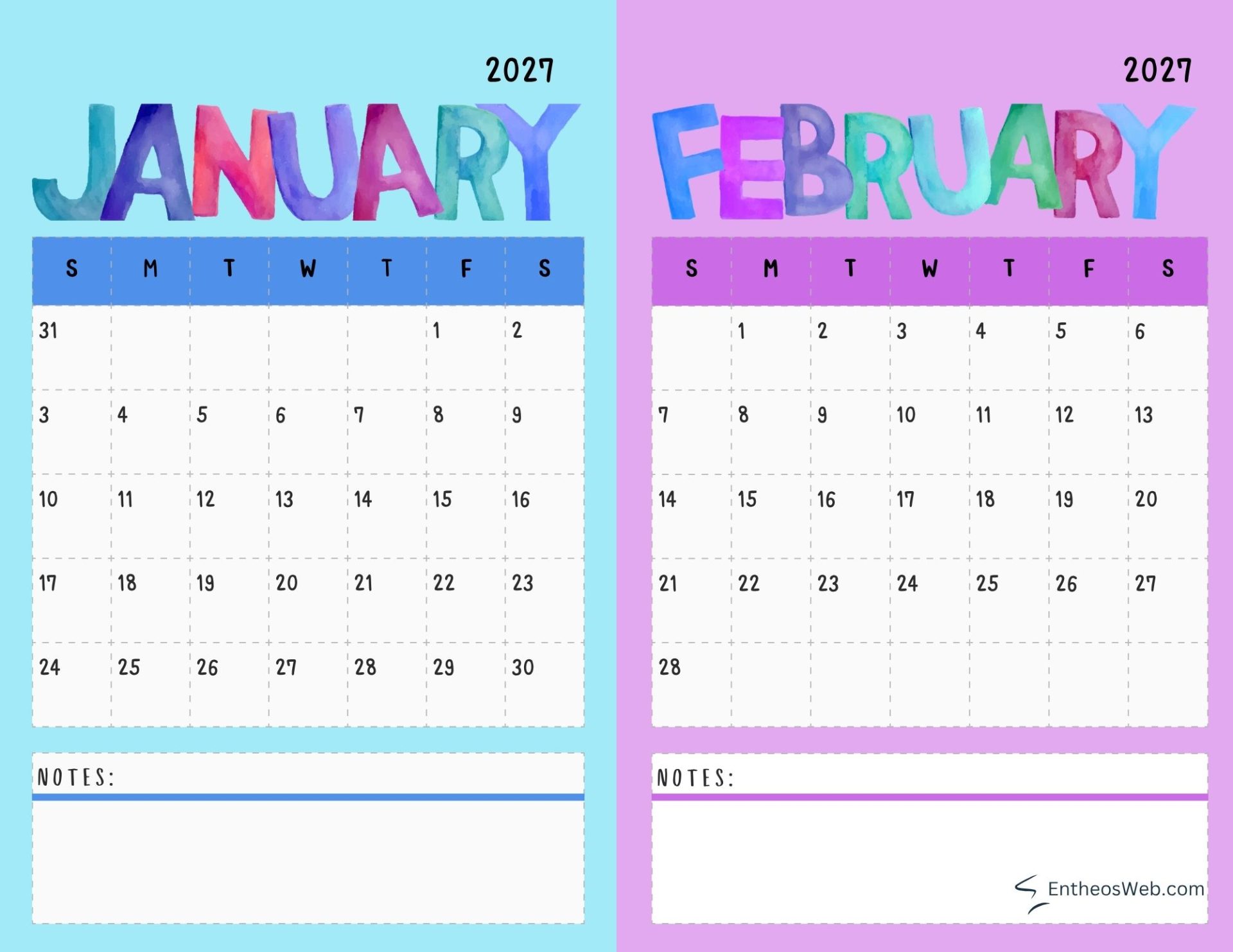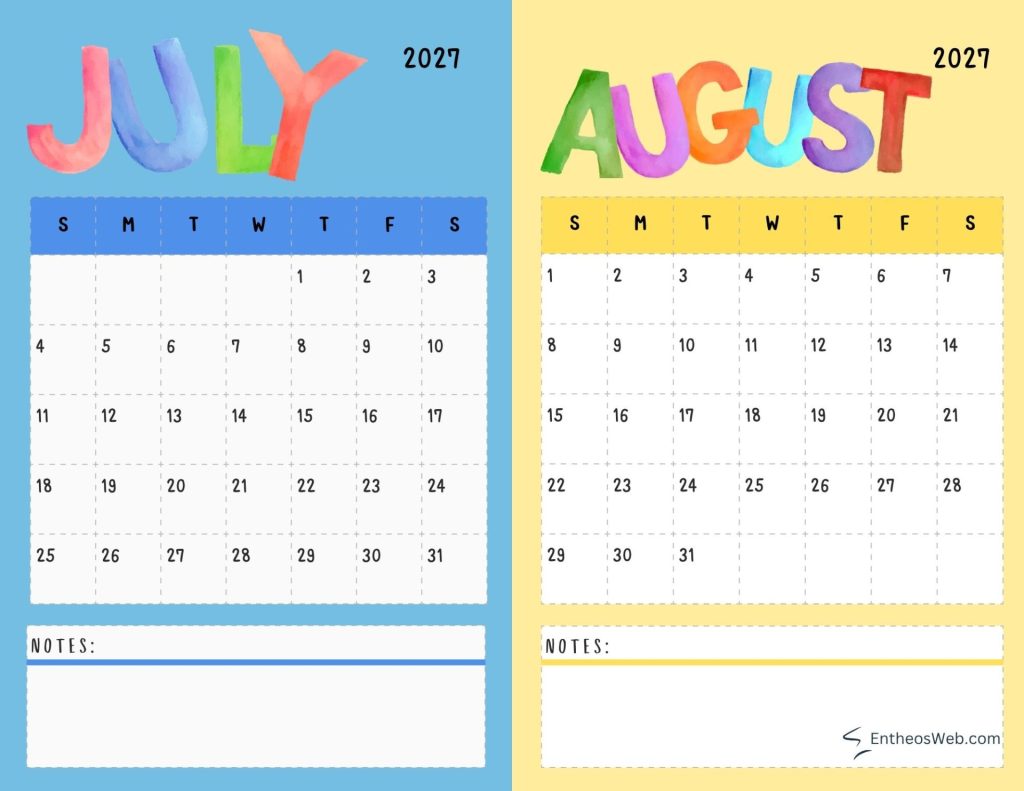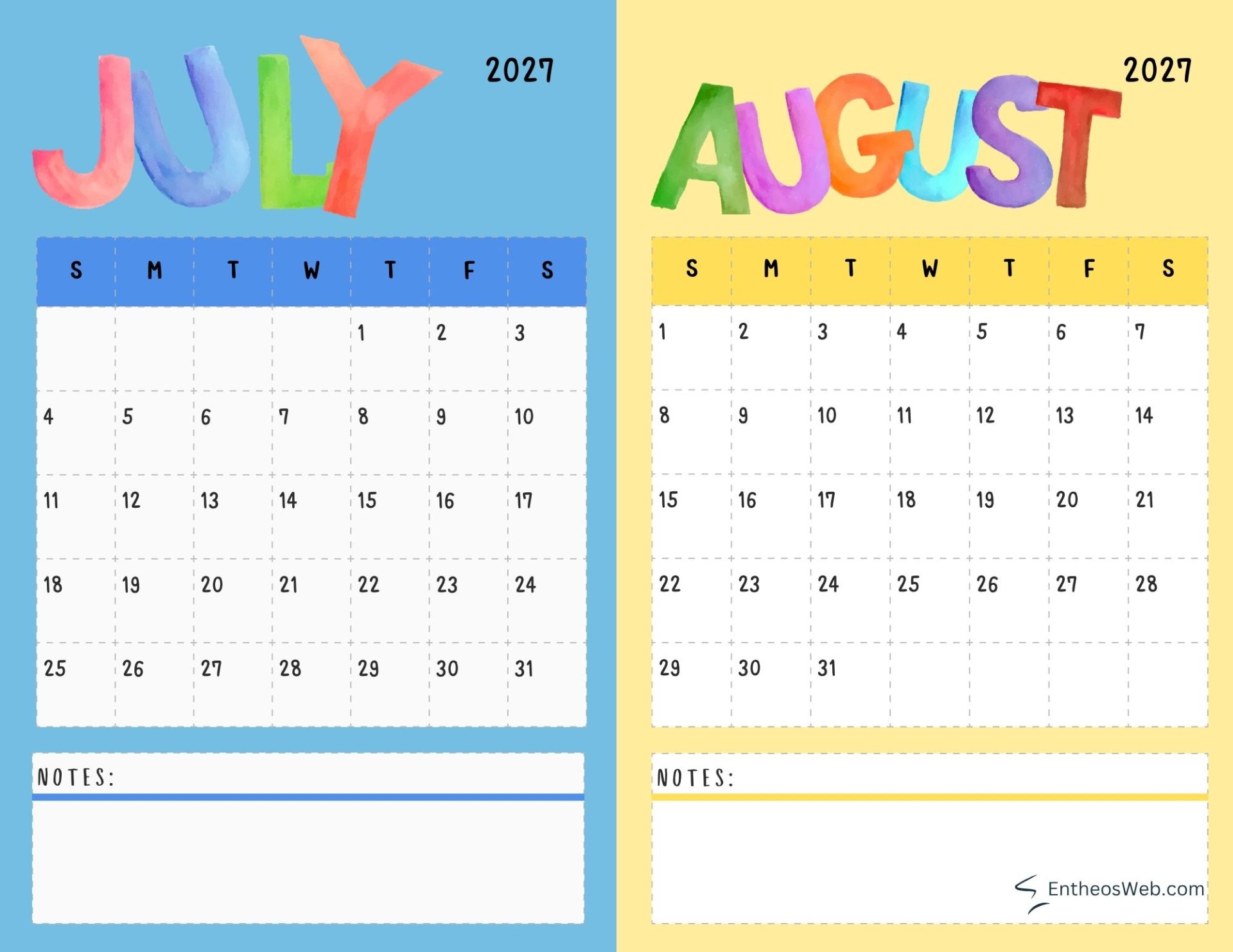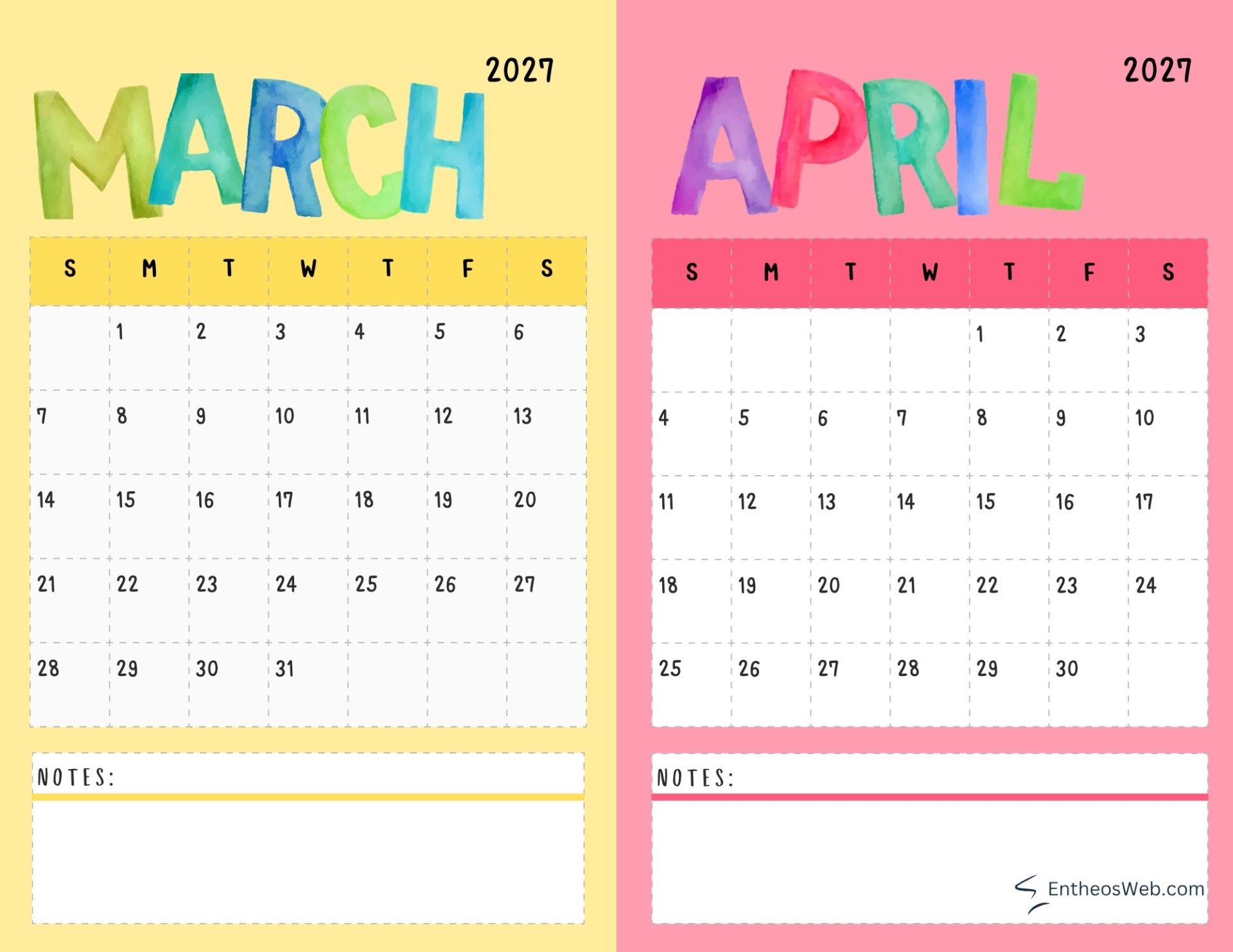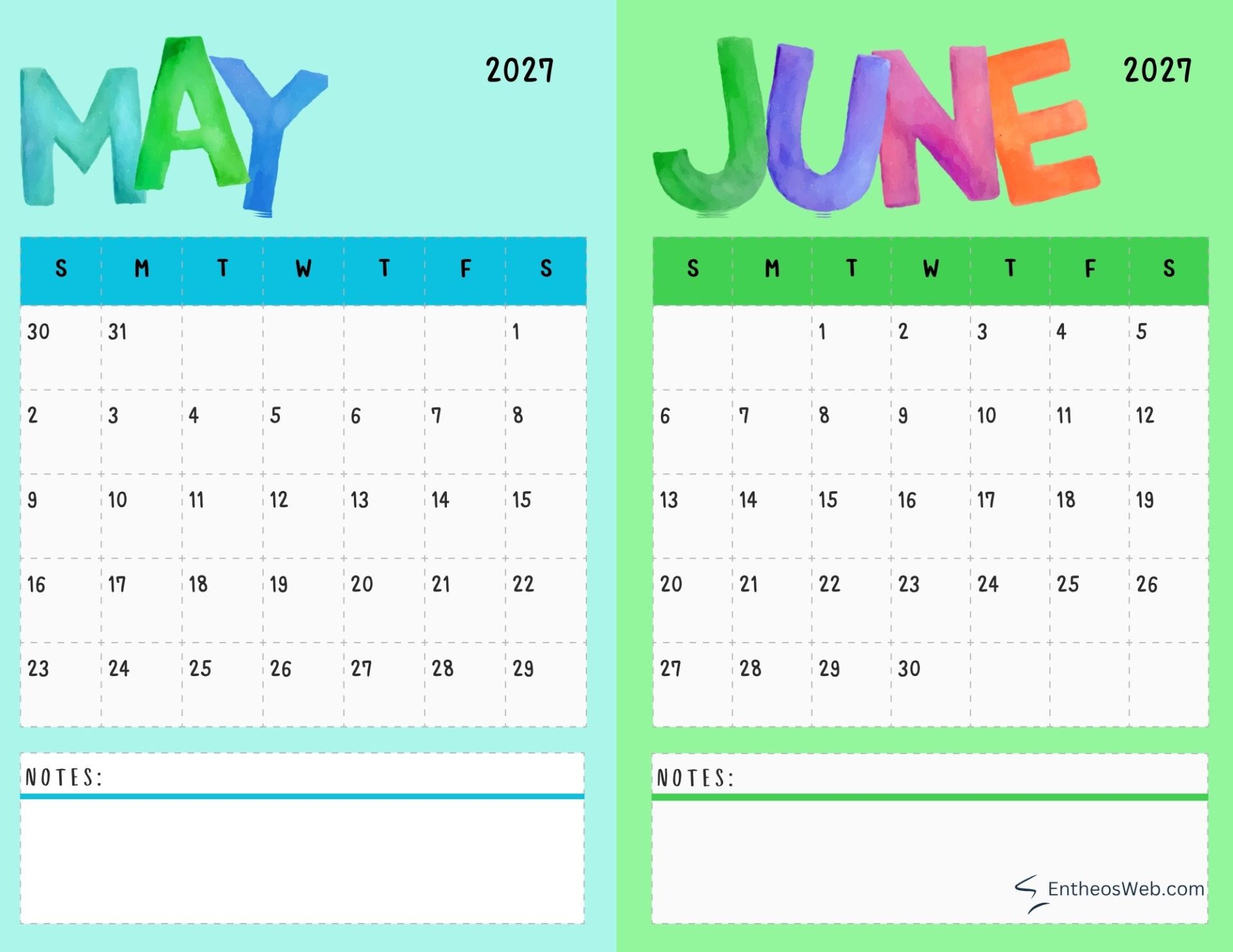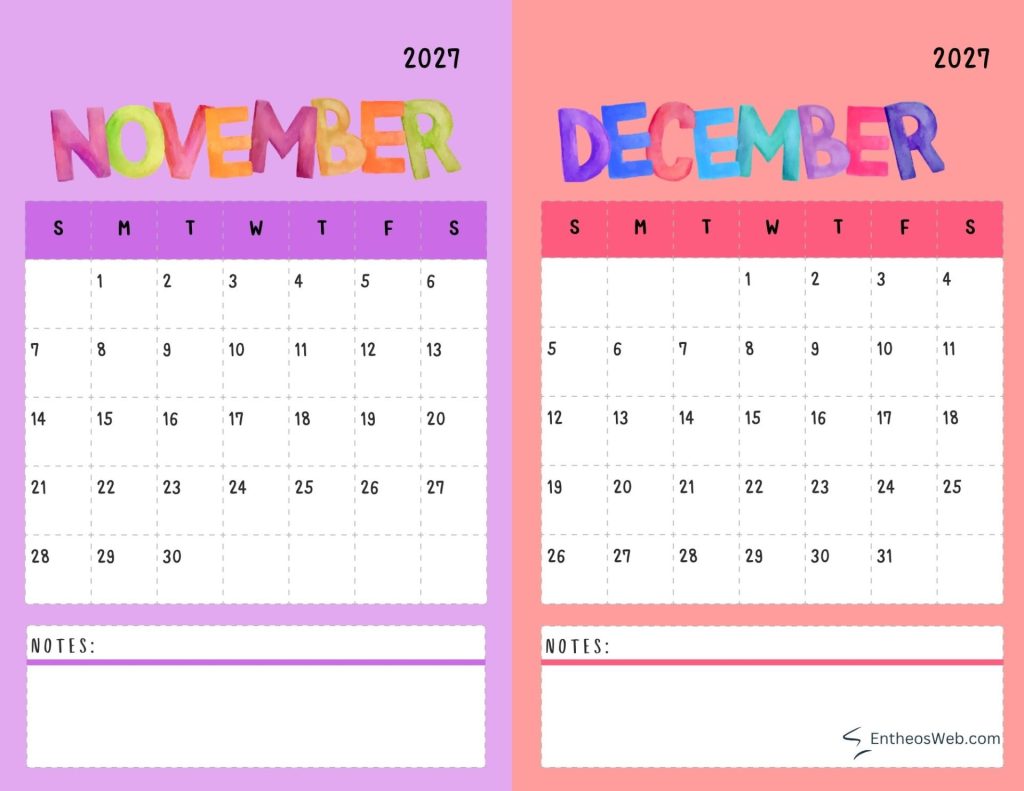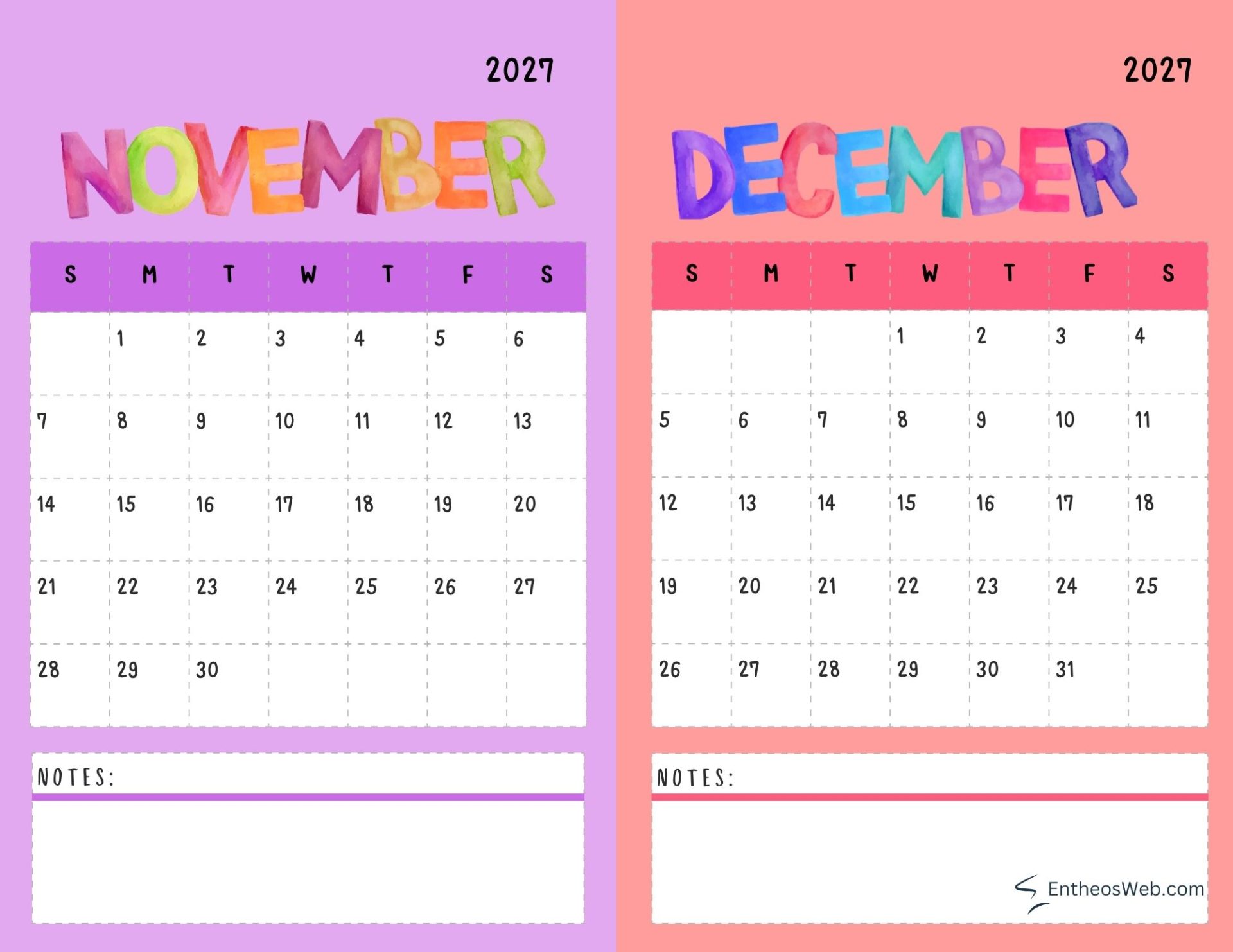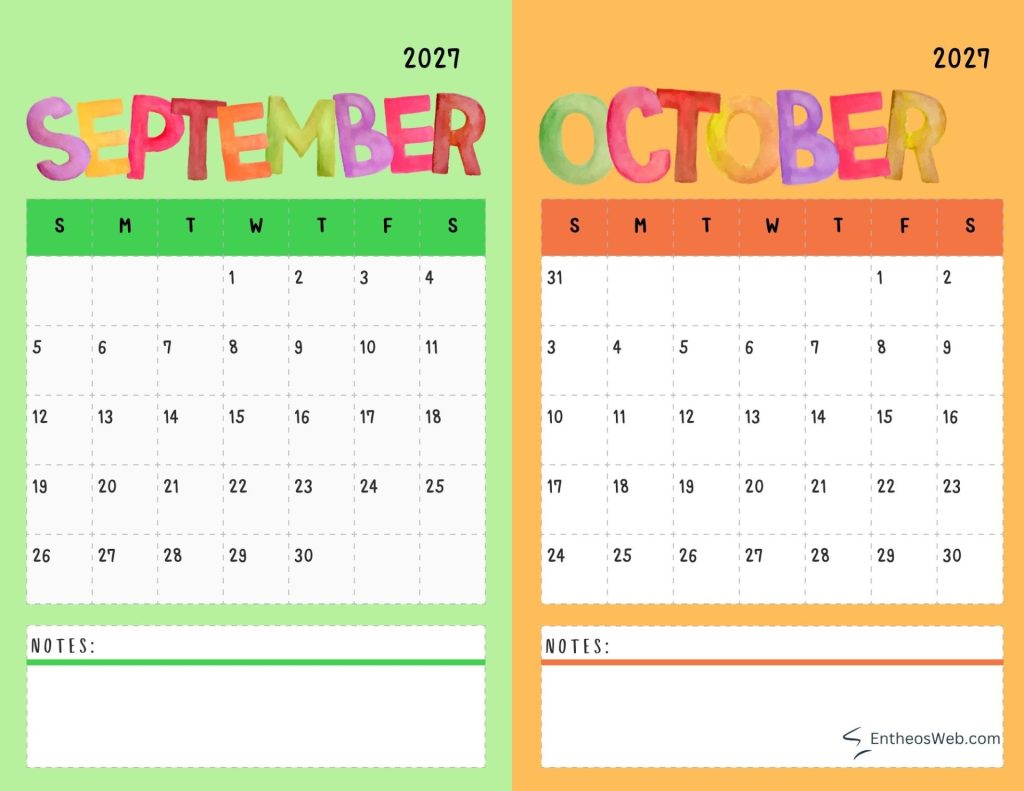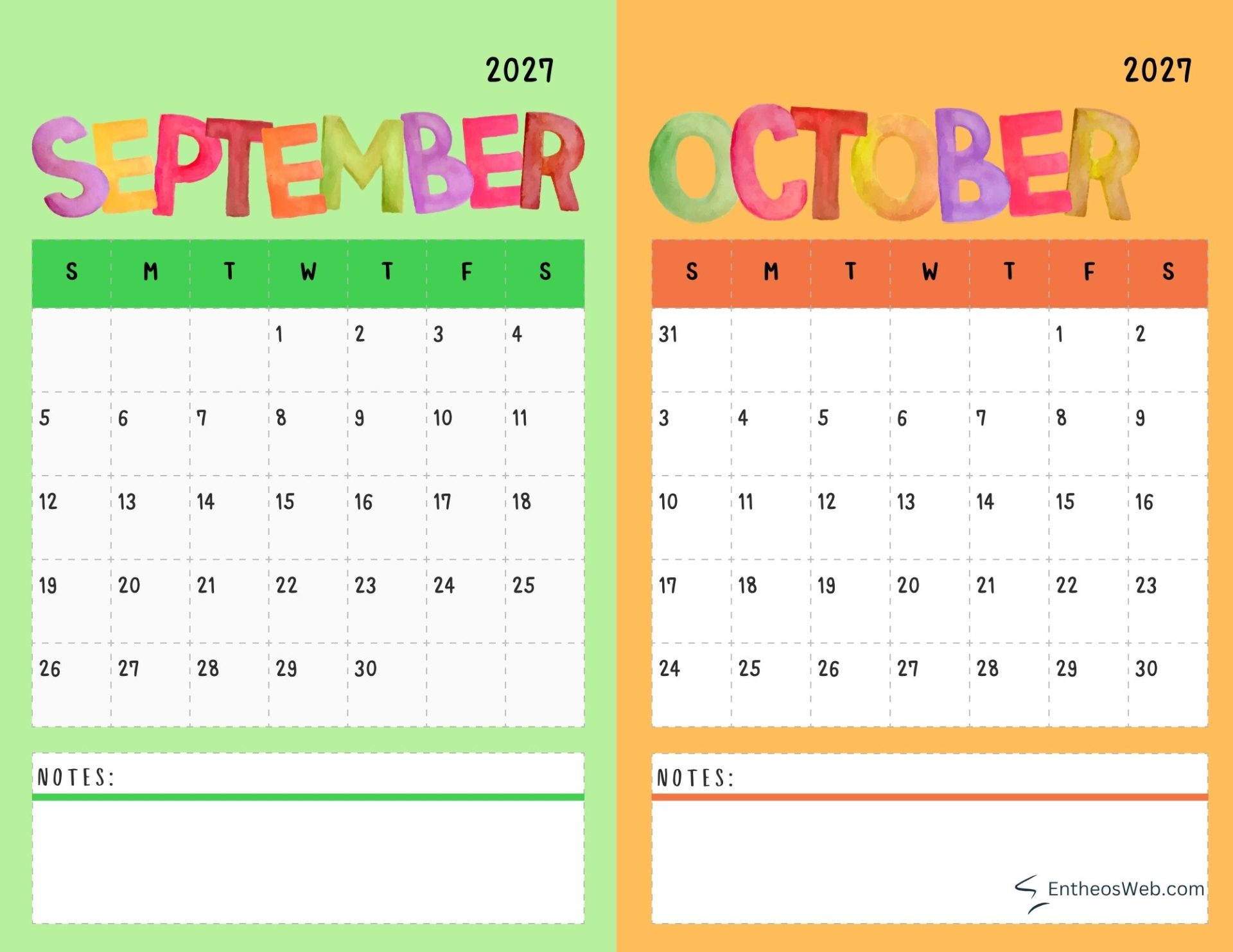
2027 Two-Month Calendar (landscape) with month names in Watercolor Font. Letter size PDF file printables with a notes section. Designed by EntheosWeb.com.